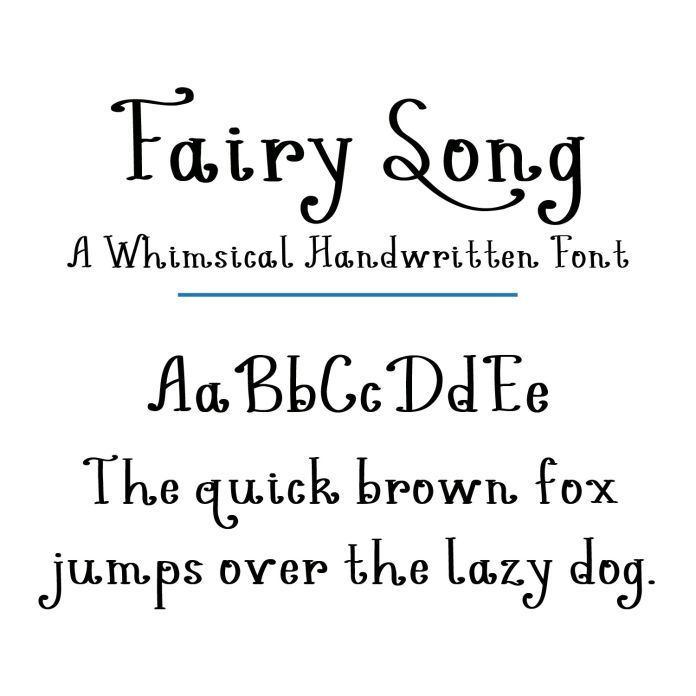
"Fairy Song" is a whimsical handwritten font featuring the full alphabet, essential punctuation, and enchanting fairy-themed extras. Bonus swirling descenders are included for many upper case letters. Bonus dingbats include magical wings, stars, a crown, wand, mushrooms and more to add charm and creativity to your crafting. Perfect for invitations, fantasy projects, or playful designs, this font brings a sprinkle of fairy magic to any creation!